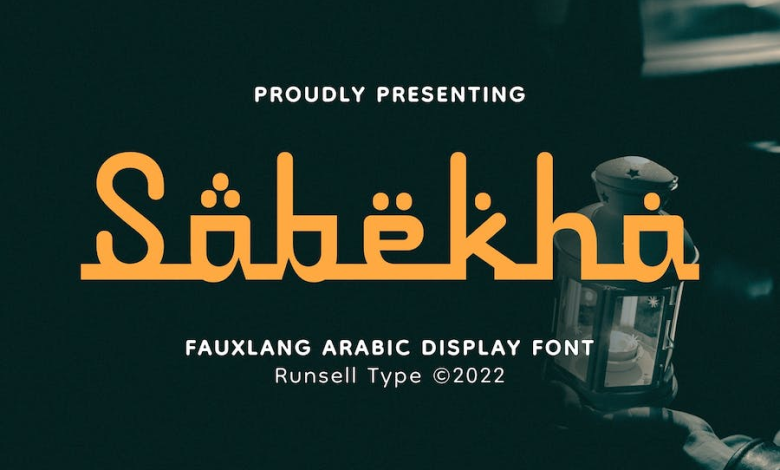
فضای بین حروف :
Normal
سبک :
Sans-Serif
مورد استفاده پیشنهادی :
Large (Display / Poster)
Features
Uppercase & Lowercase
Numeral & Punctuation
Multilingual support
Opentype Features